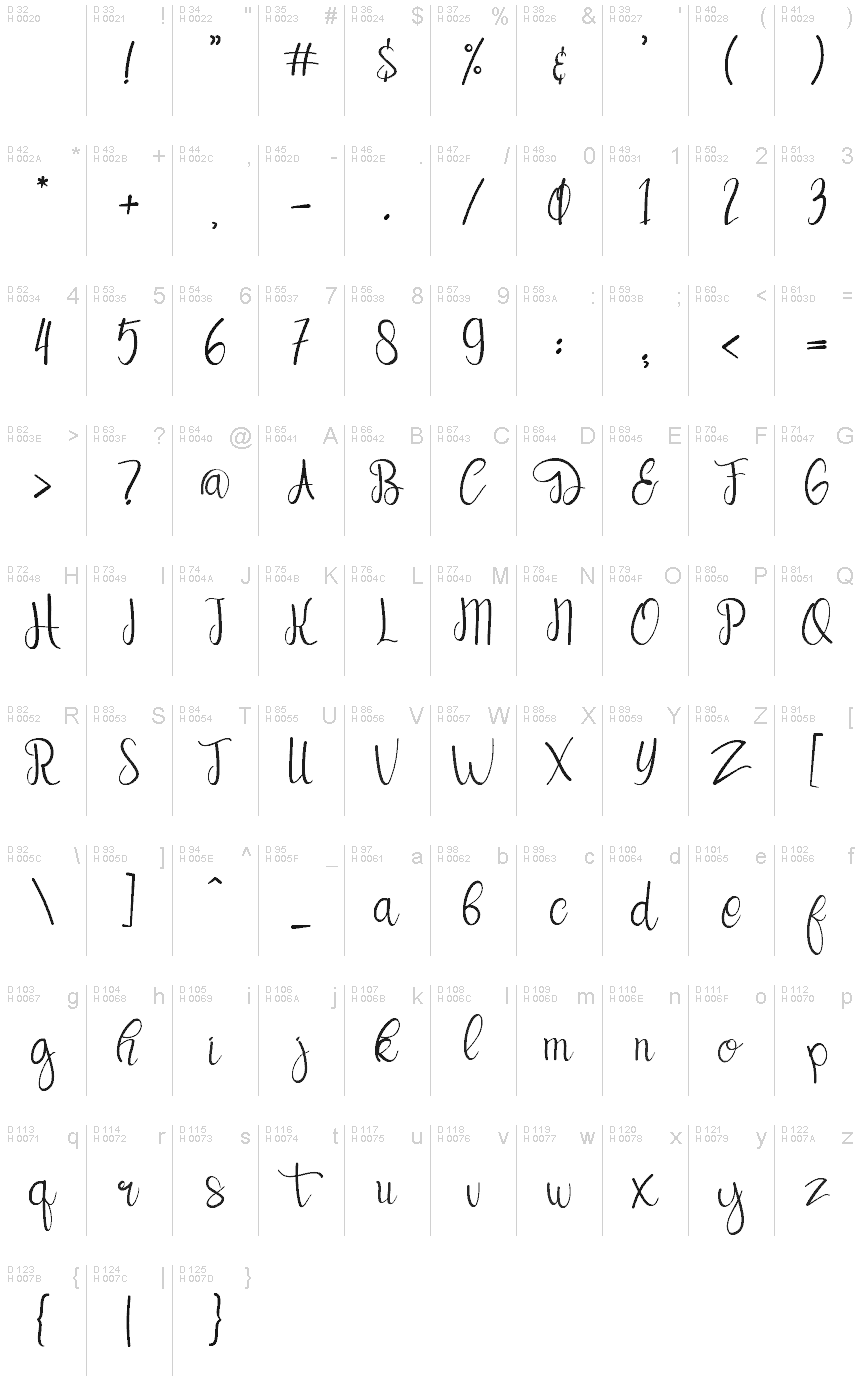
Beautype Demo
Introducing Beautype! A simple script font complementary with lowercase stylistic set.
Beautype script font is a simple and classy font, opentype features such as stylistic set, and ligatures. We keep this font looks simple, classy, readable, stylish, catchy, and easy to use.
The Beautype Script Font is the great choice for watermark on photography, quotes, business card, and many other design project. From business cards to photo watermarks, The Beautype is here to elevate your work to the highest level.